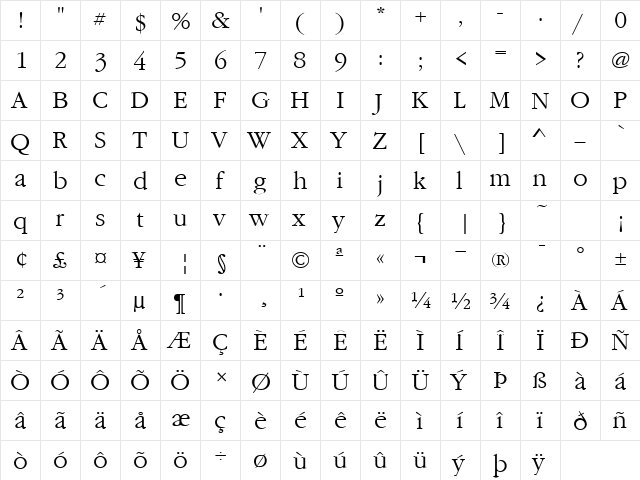
GaramondNovaL Regular
Design Context for GaramondNovaL Typeface
GaramondNovaL is a composed and adaptable typeface that performs quietly and consistently across a wide range of design contexts.